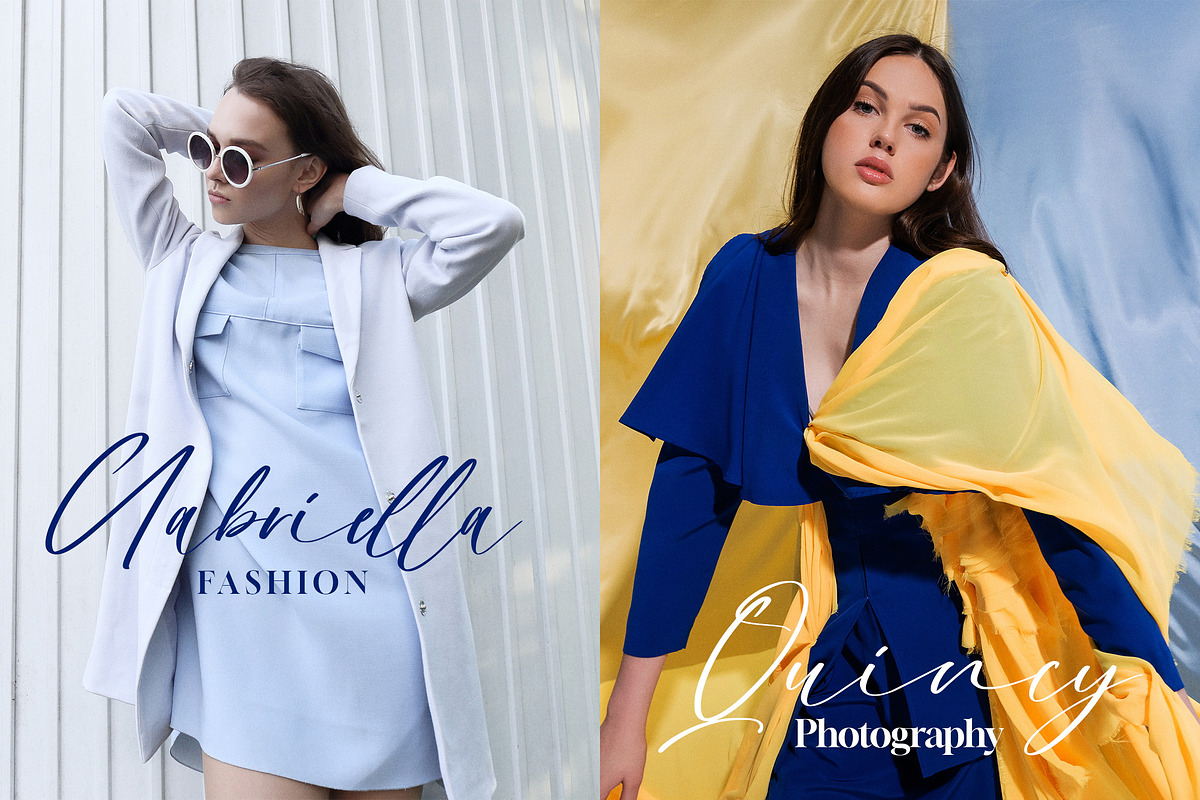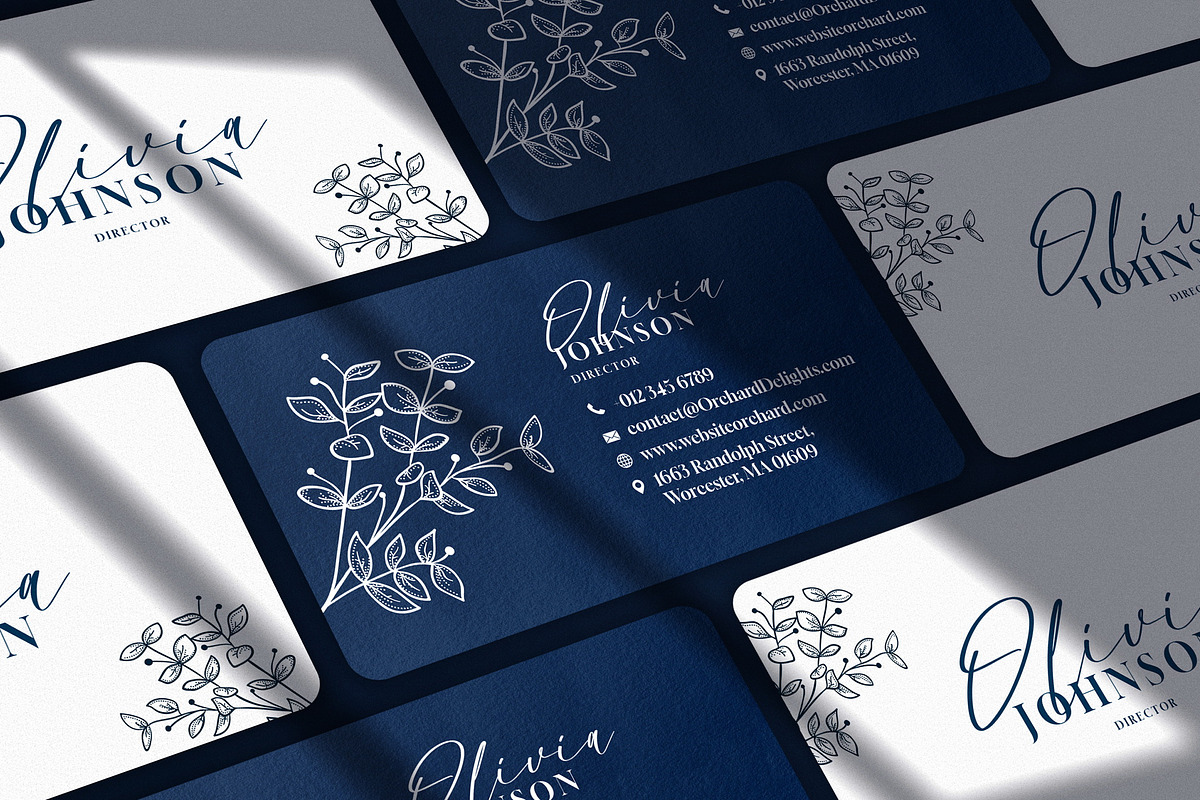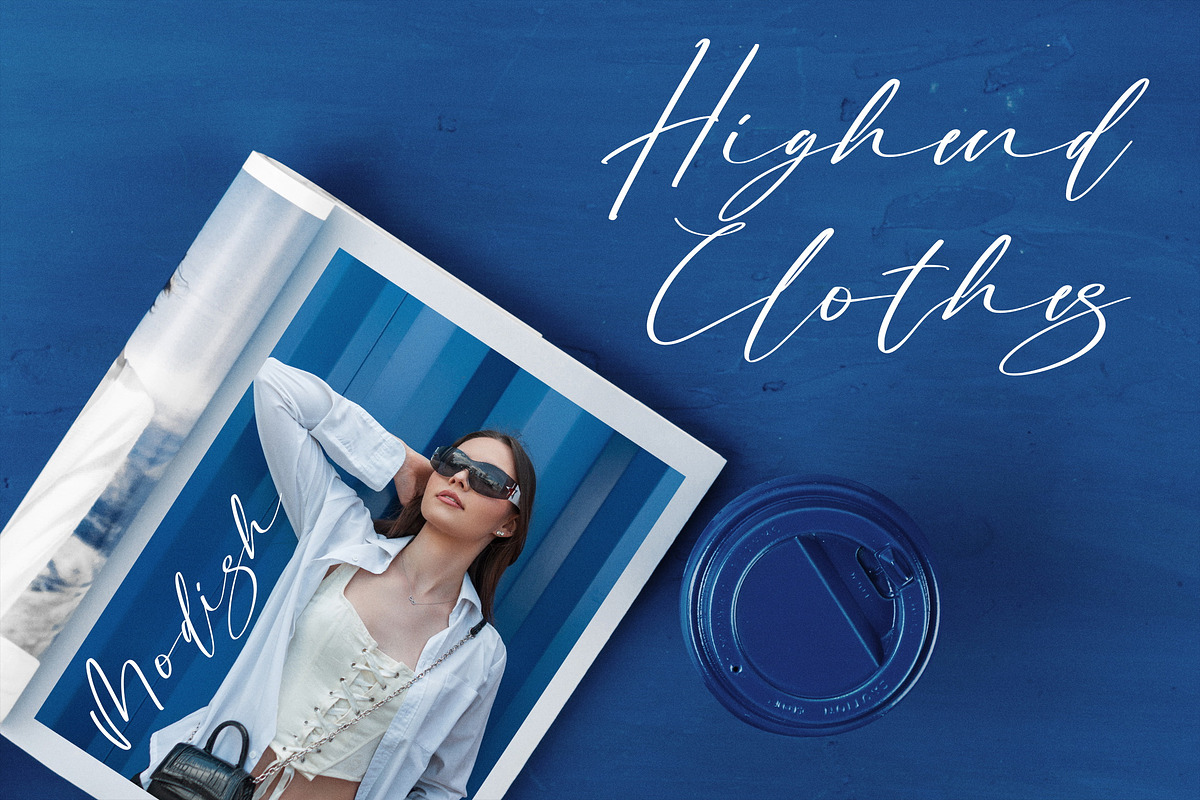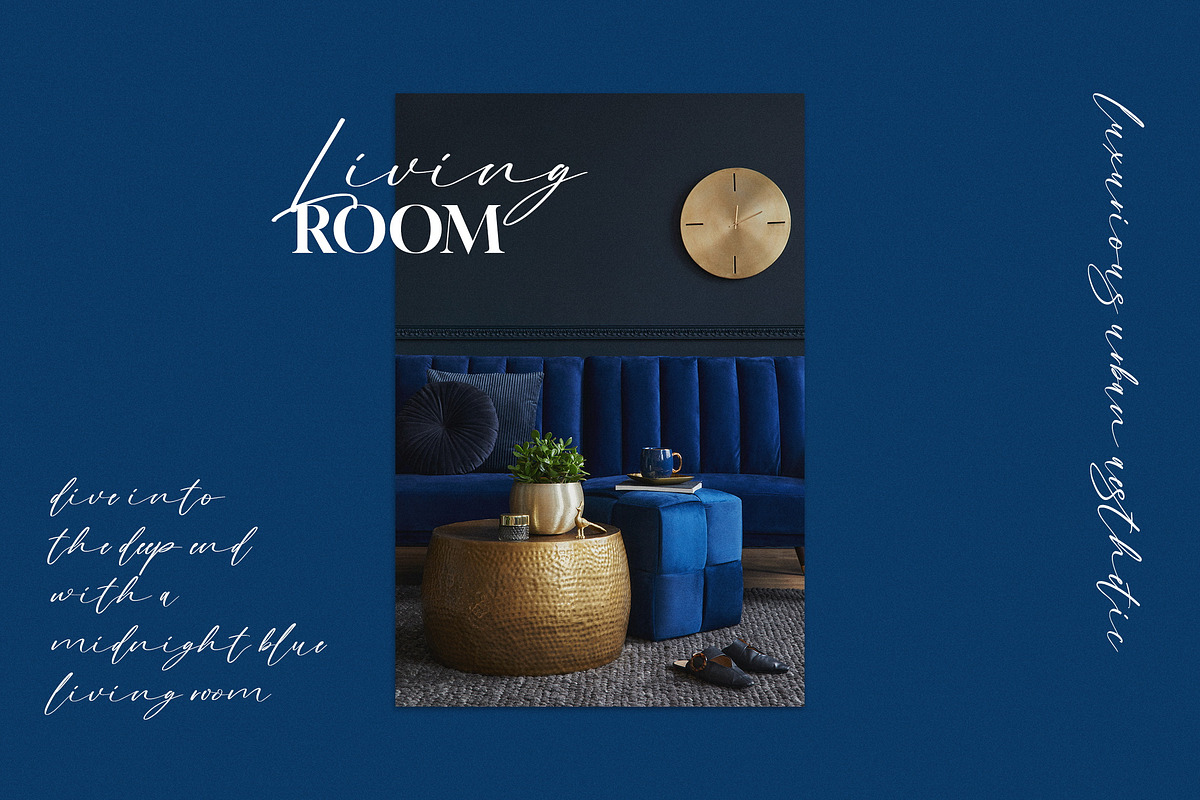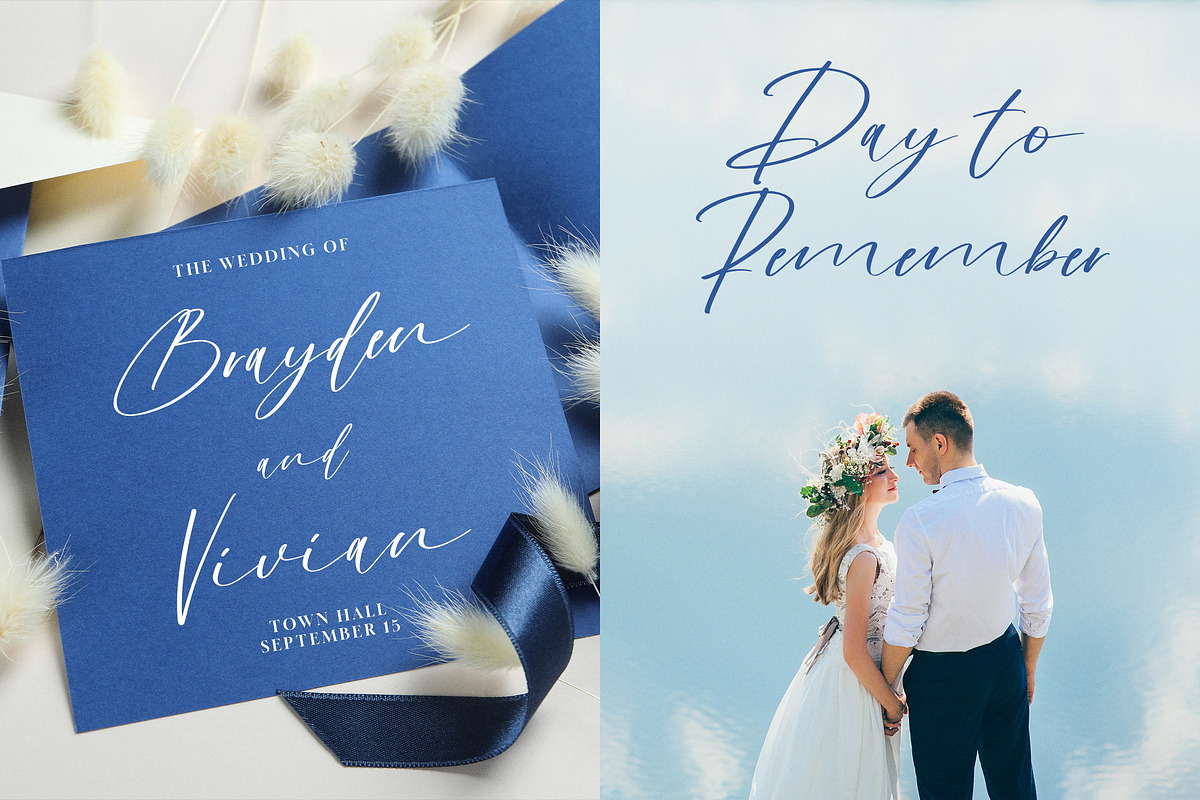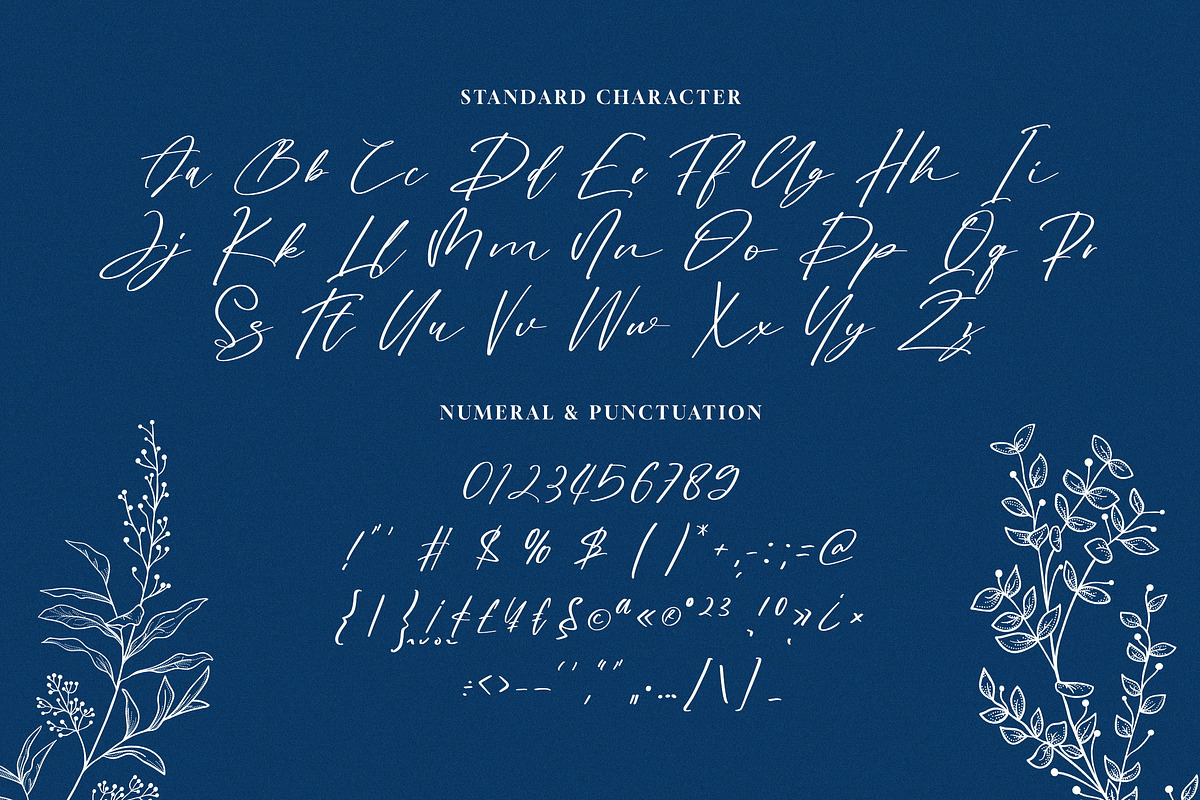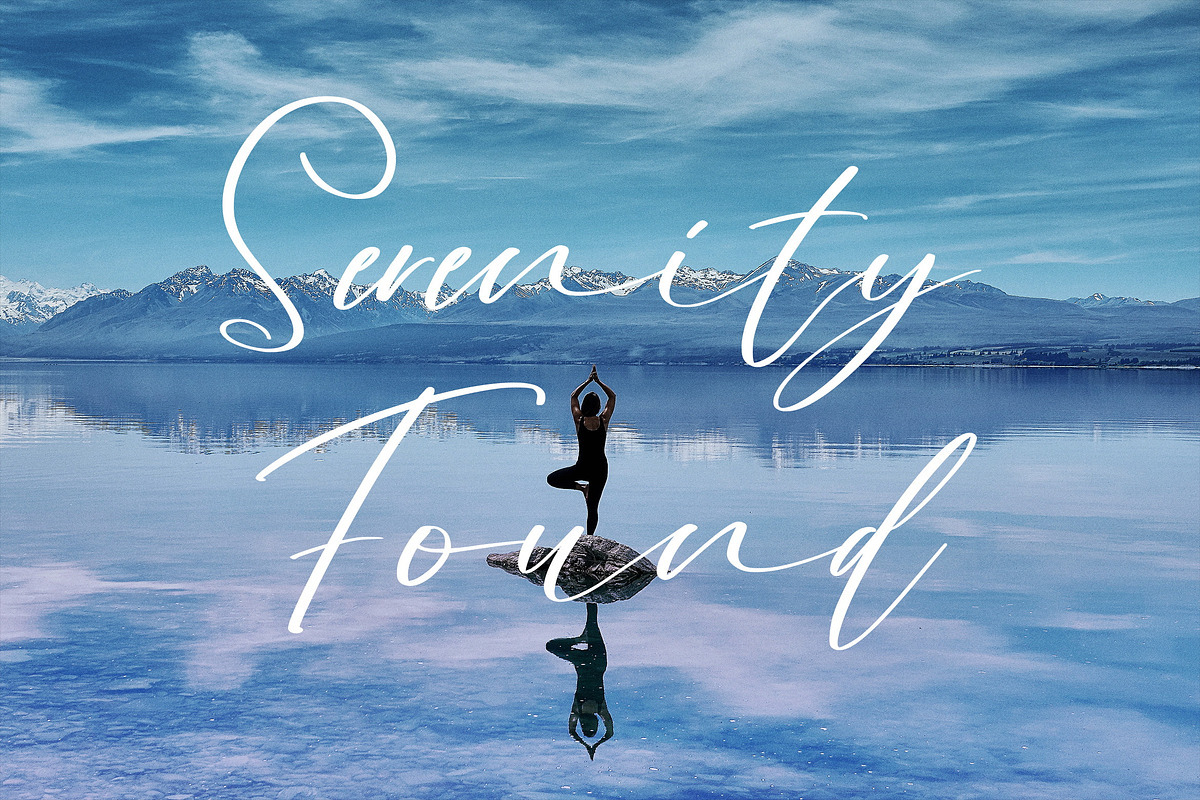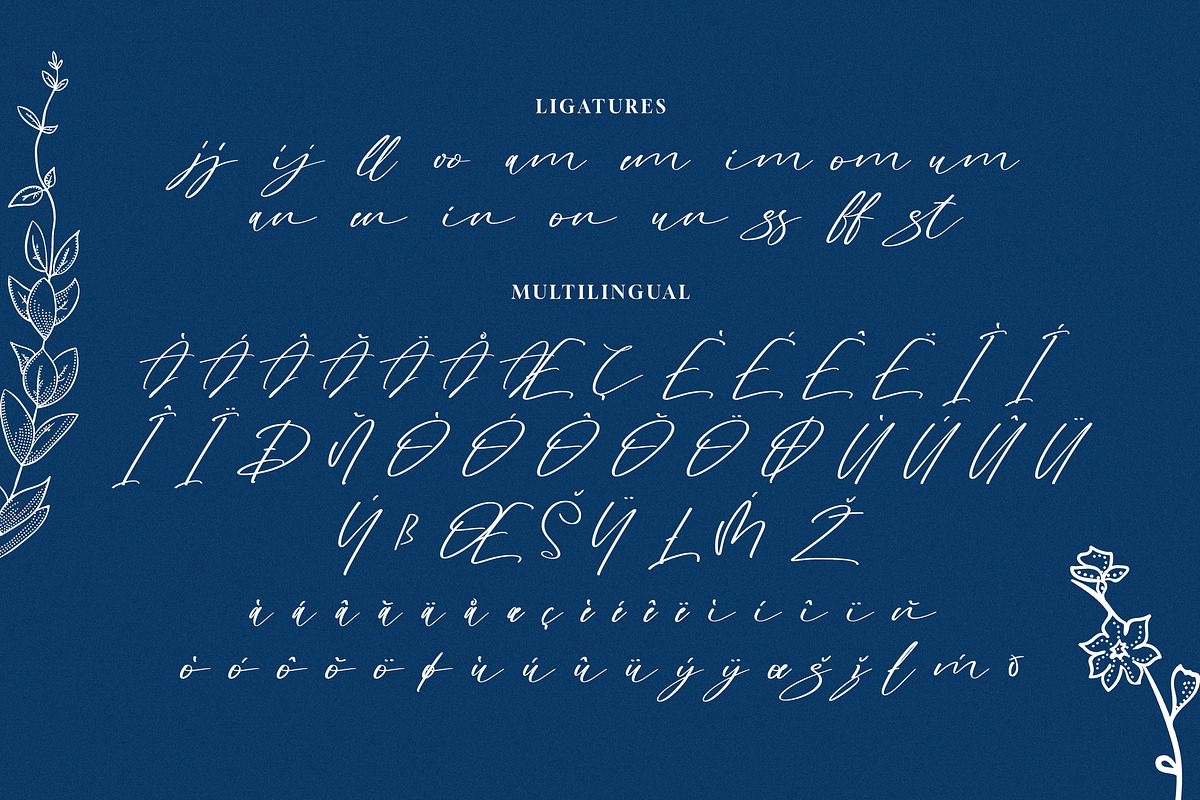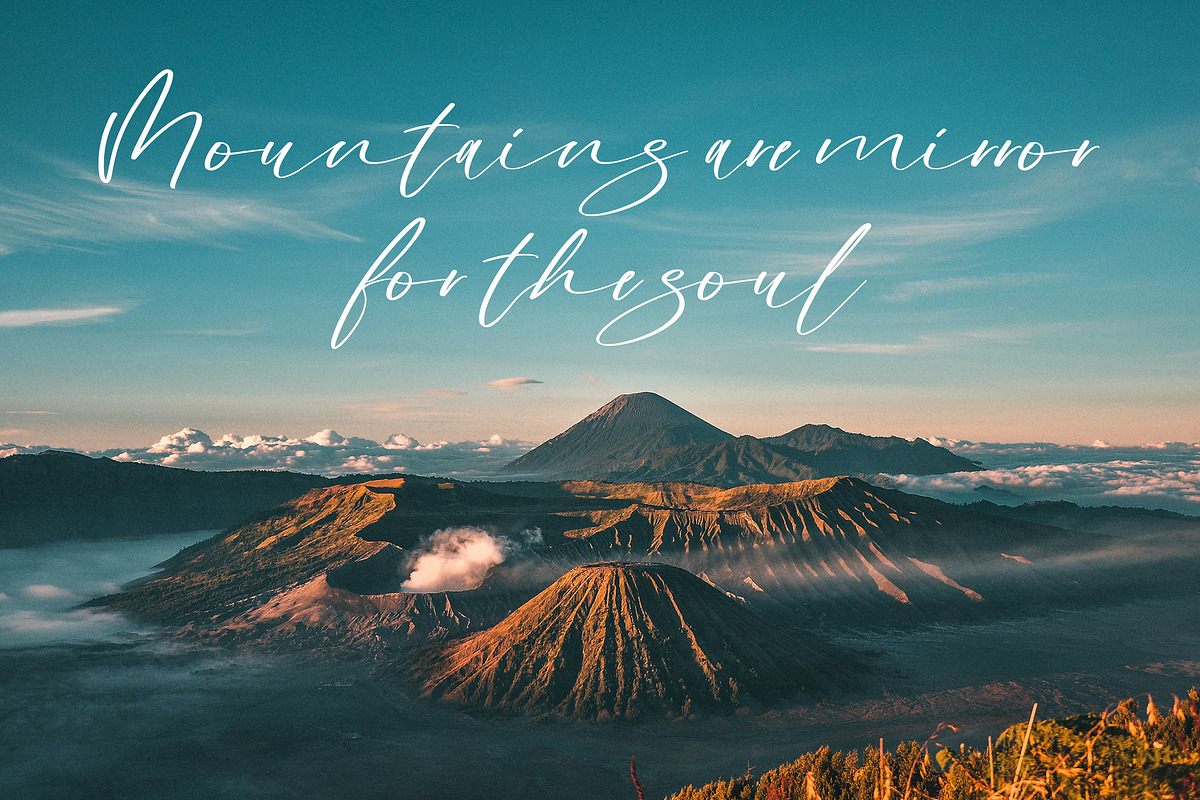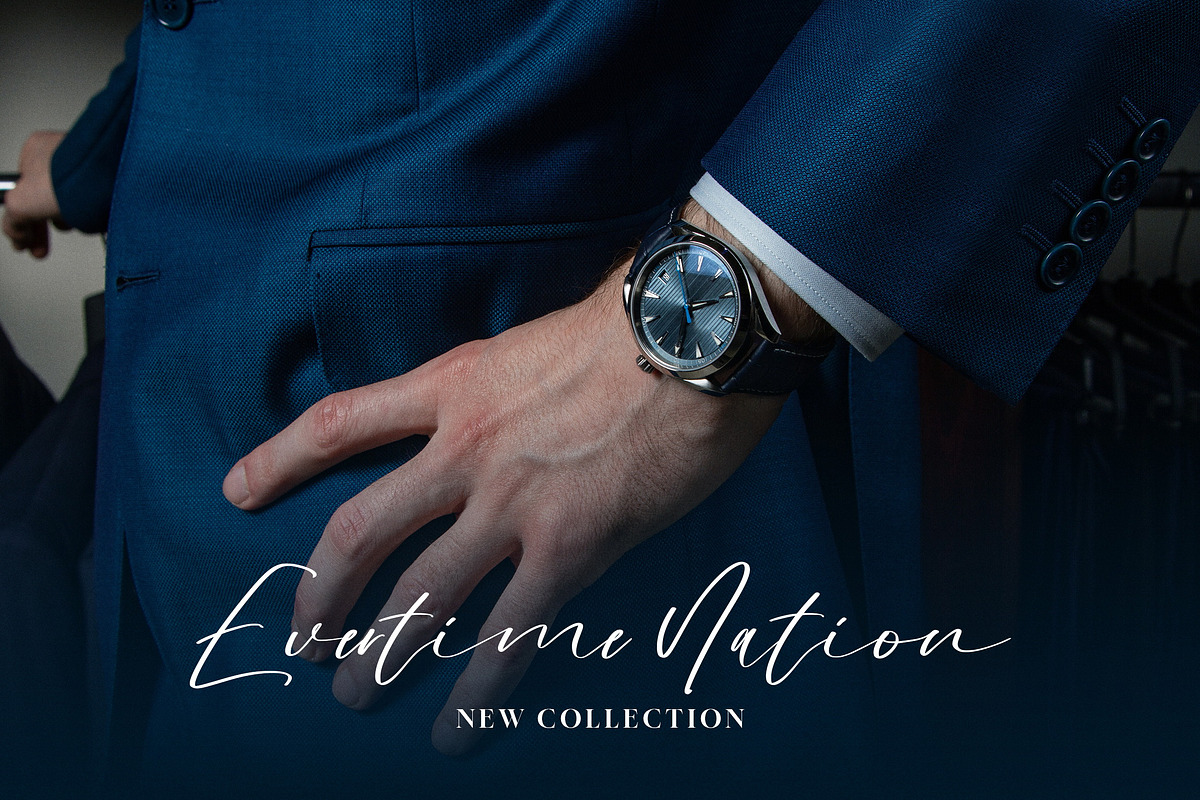
Lentera Jiwa - Modern Script Font
Illuminate your designs with Lentera Jiwa, a modern script font that exudes elegance and fluidity. Inspired by the gentle glow of lanterns on a serene night, its graceful curves and delicate strokes will add a touch of sophistication to any project. Perfect for title poster, wedding invitations, logo or branding materials, and heartfelt messages, Lentera Jiwa brings a warm and enchanting feel to your creative endeavors. Let your words shine with the captivating beauty of this exquisite script font.